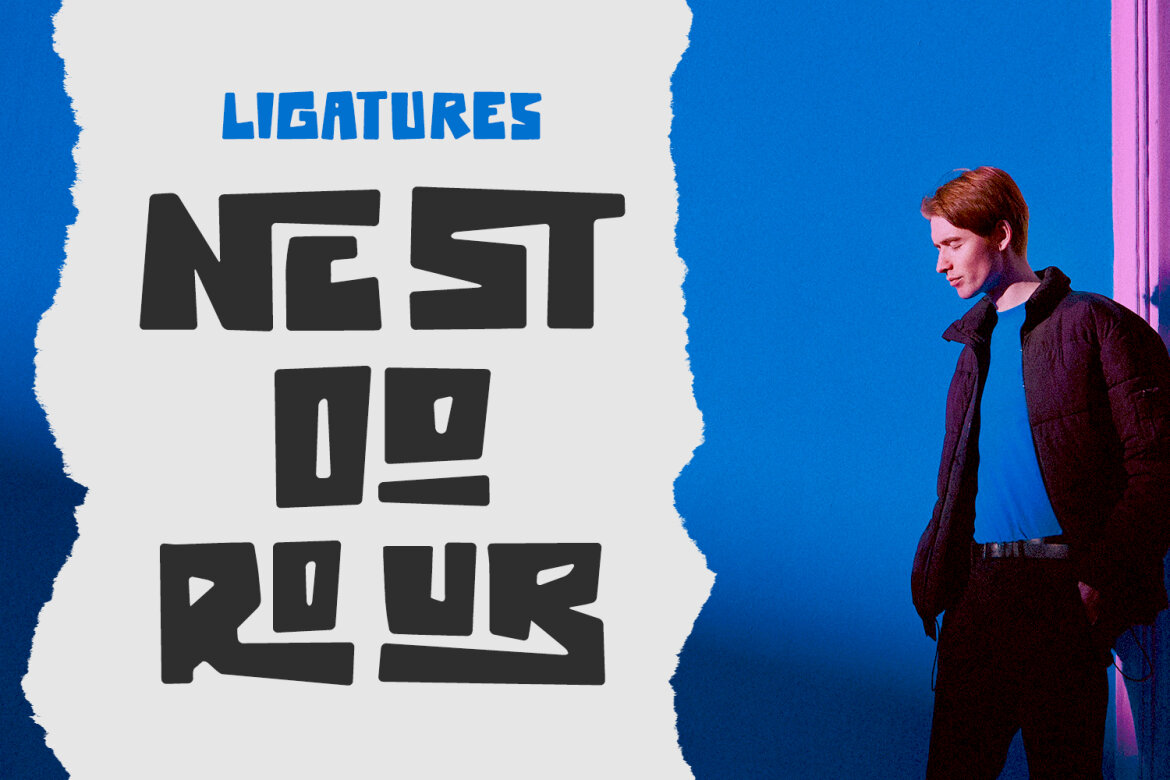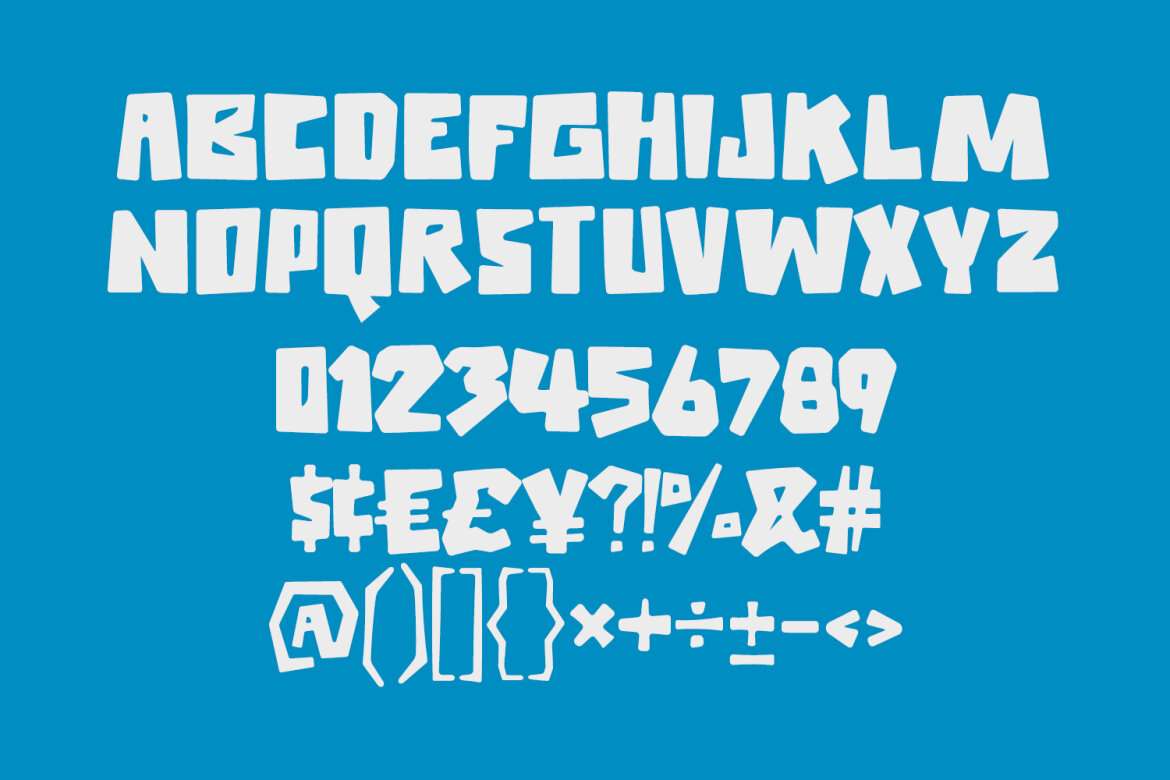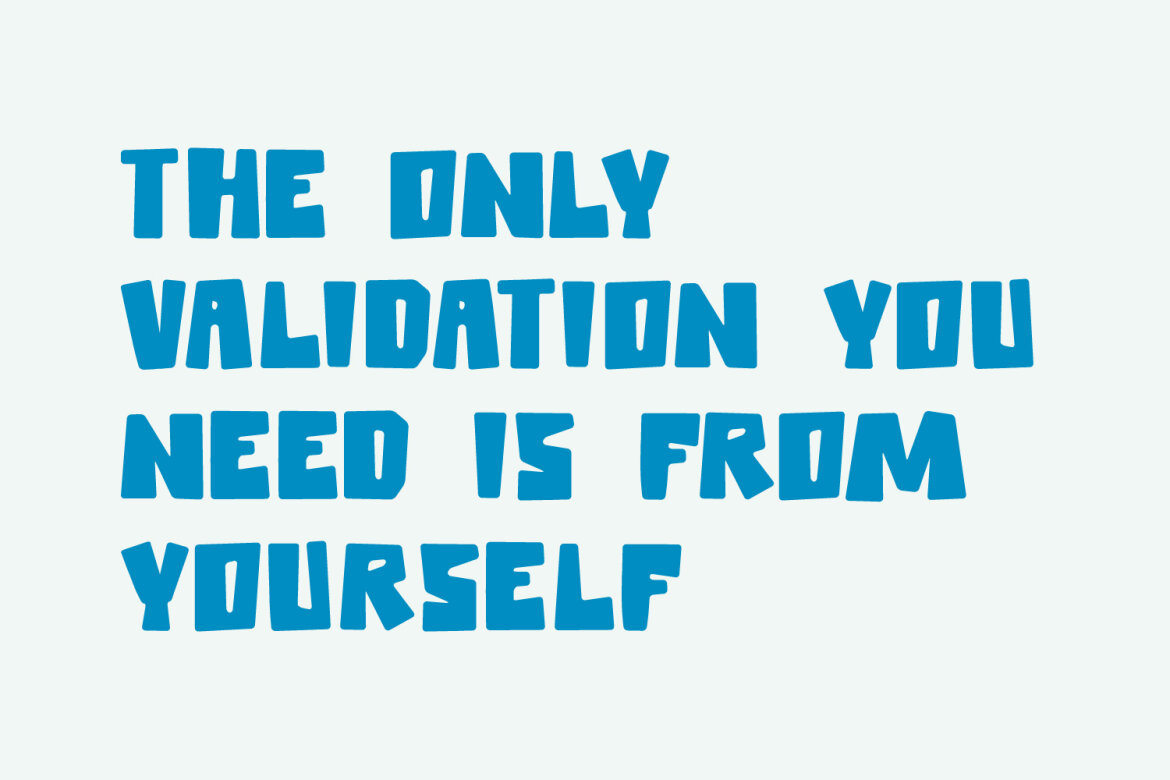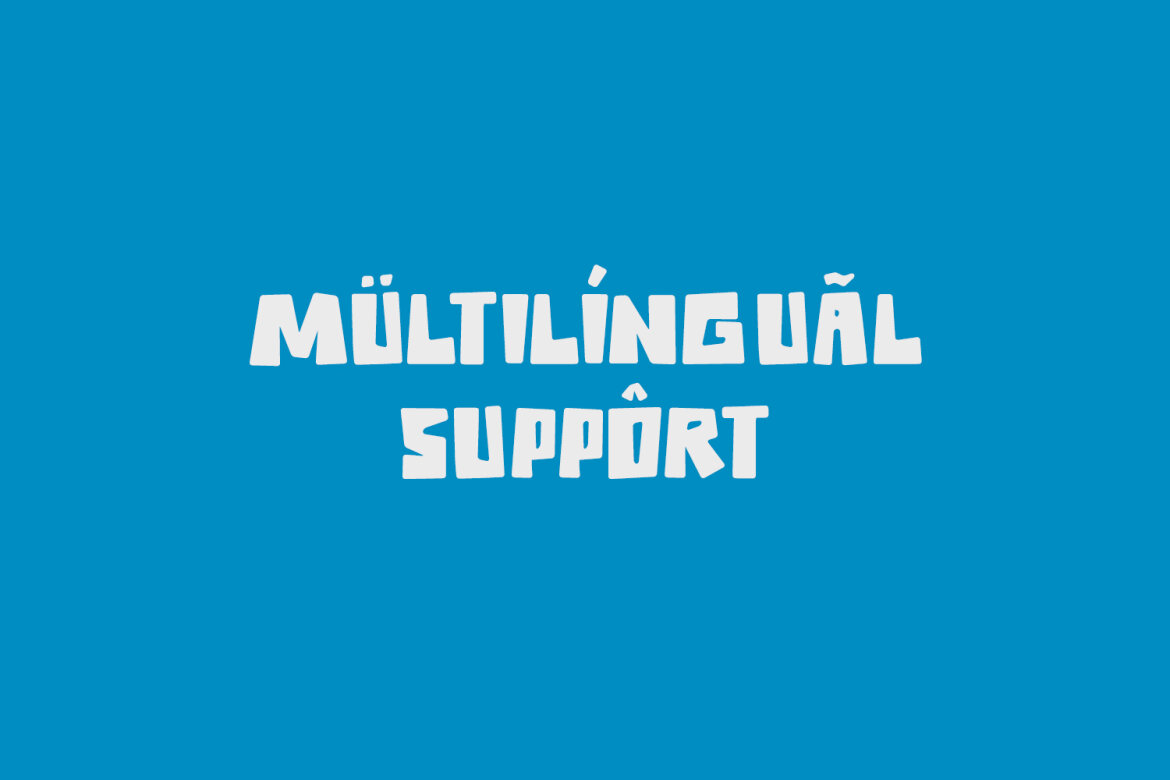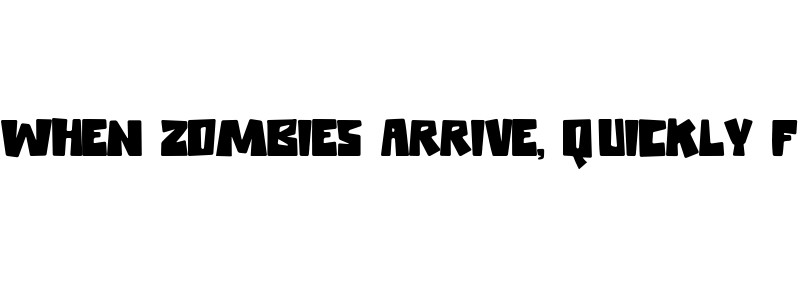
Neuroon Sans Serif FREE Font
Neuroon
Neuroon sans display font. Heavy stroke, fun character with a bit of ligatures. To give you an extra creative work. Neuroon sans display font support multilingual more than 100+ language. This font is good for logo design, Social media, Movie Titles, Books Titles, a short text even a long text letter and good for your secondary text font with script or serif. Make a stunning work with Neuroon sans display font.